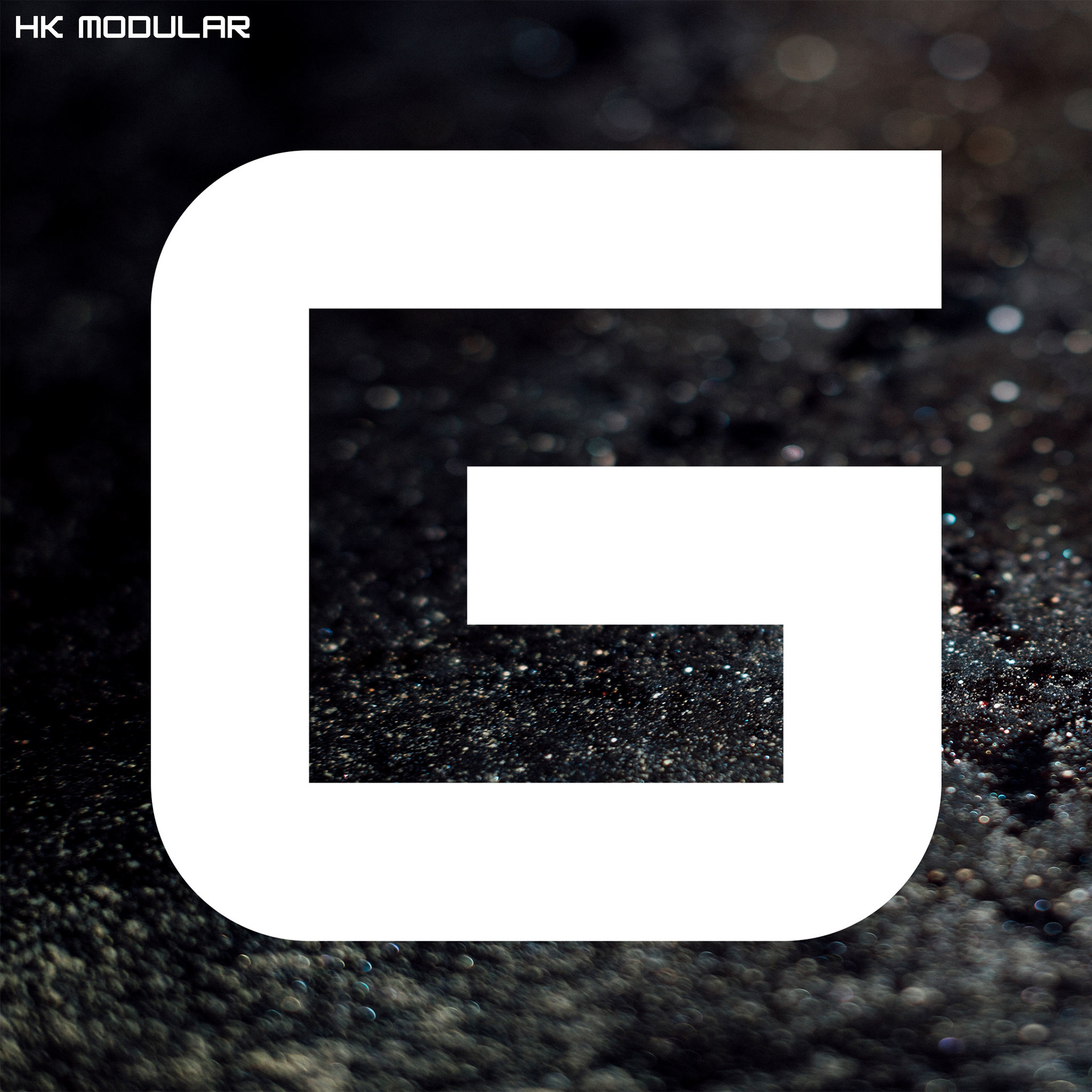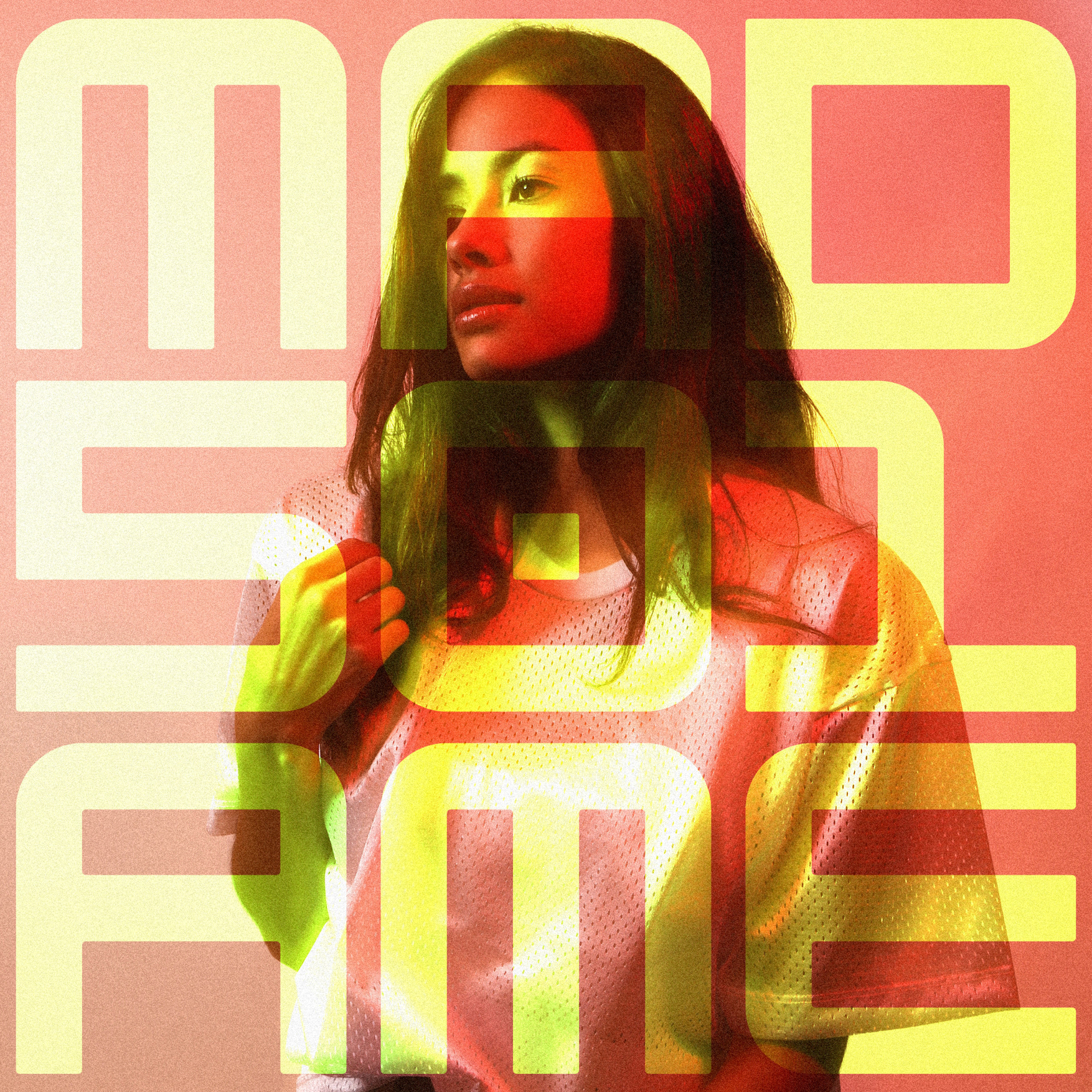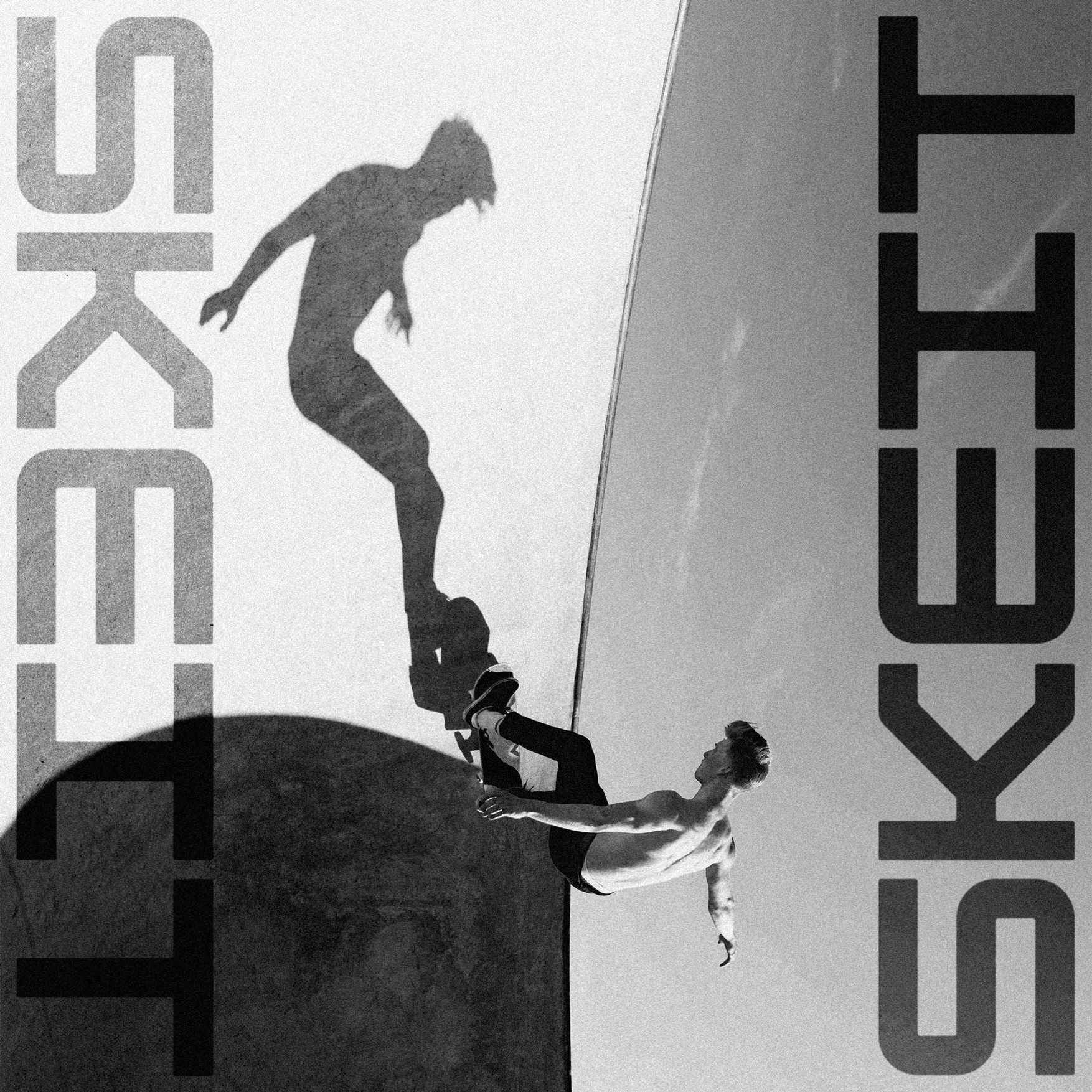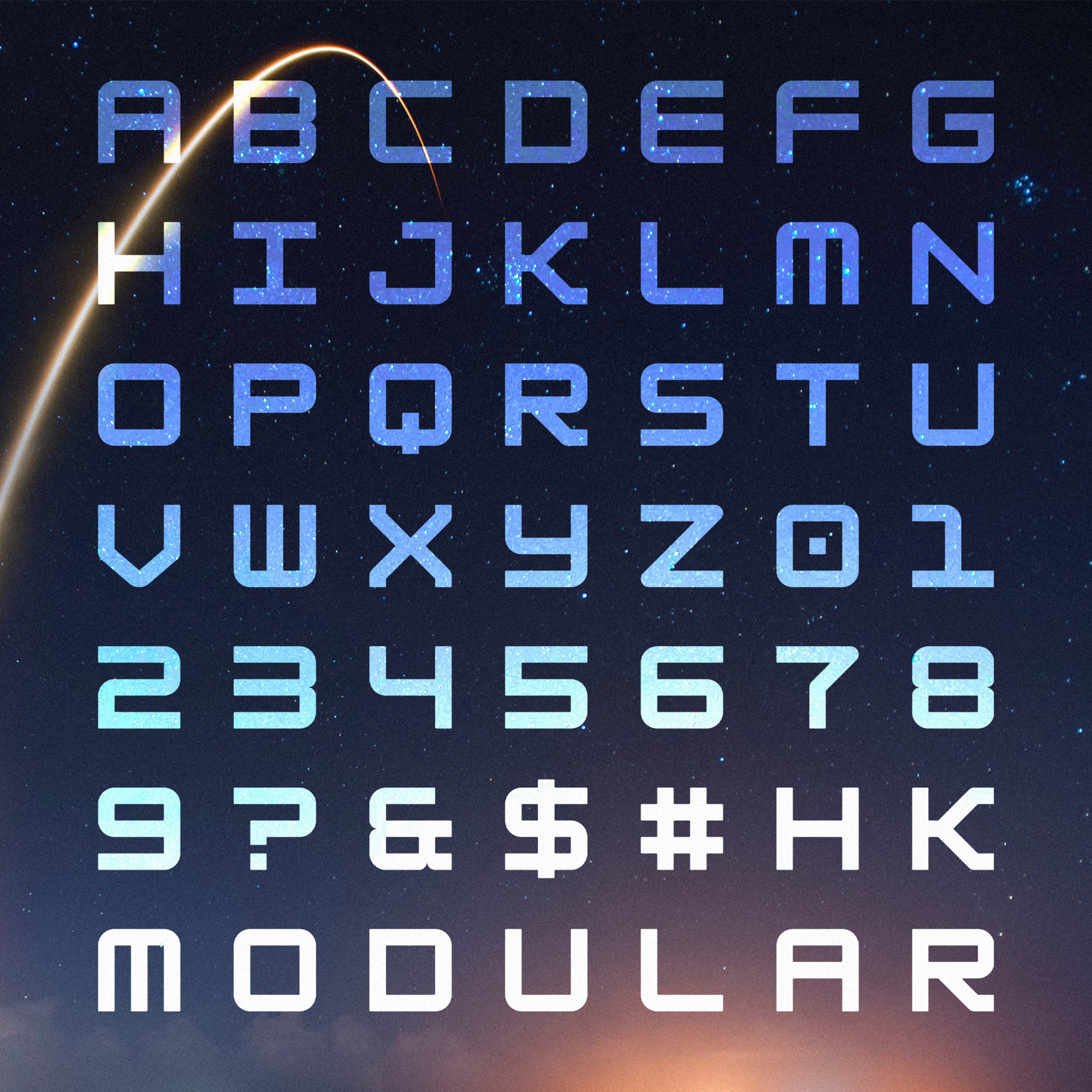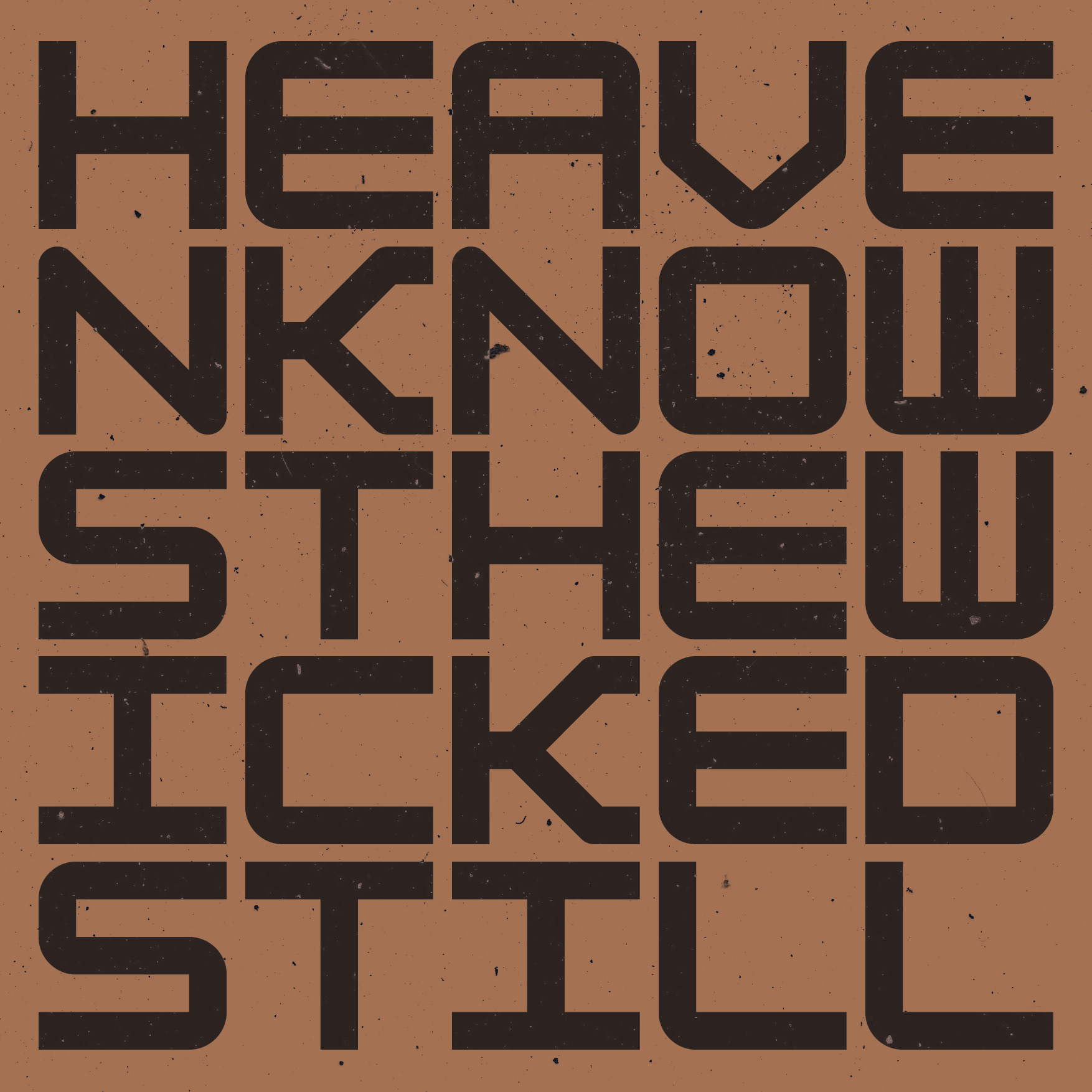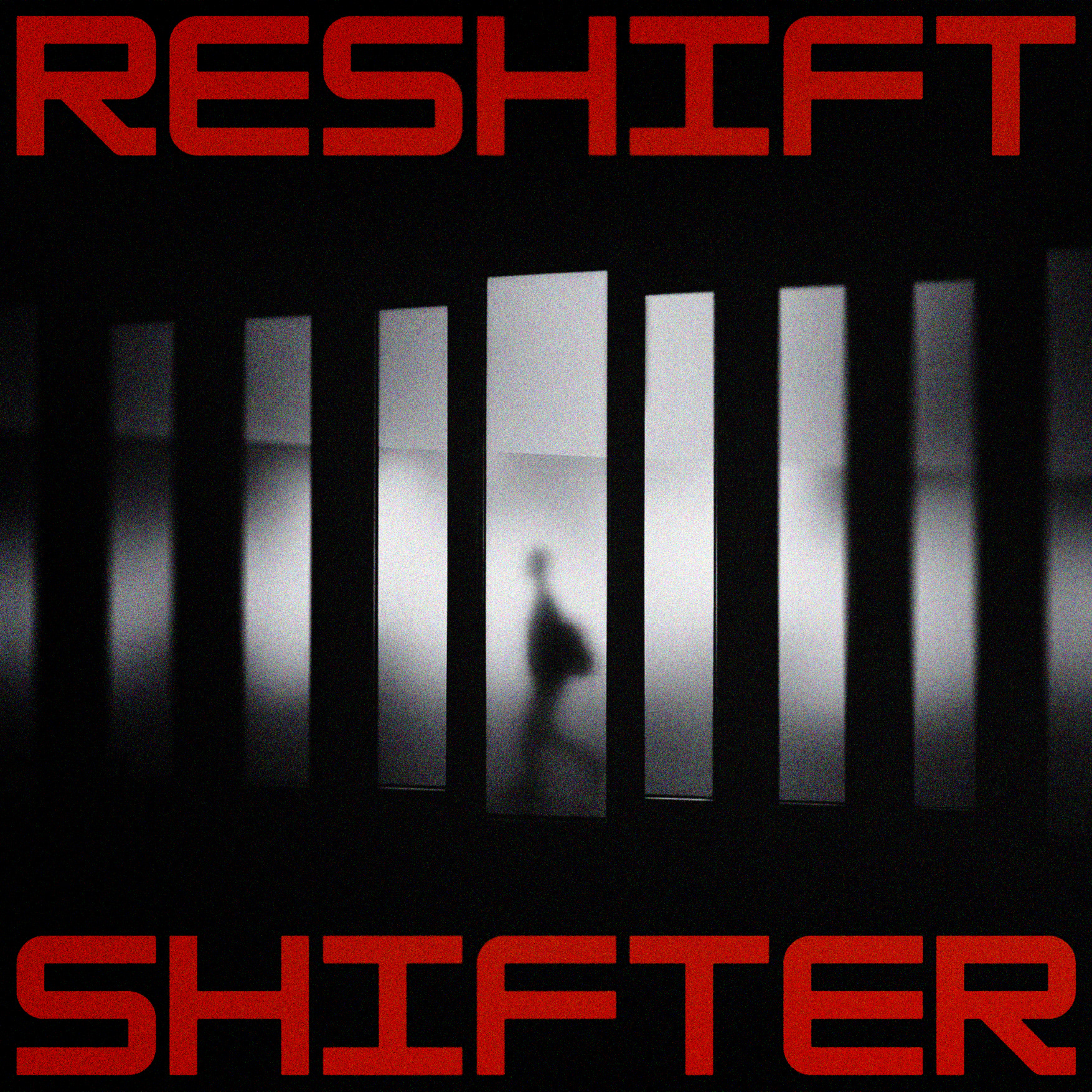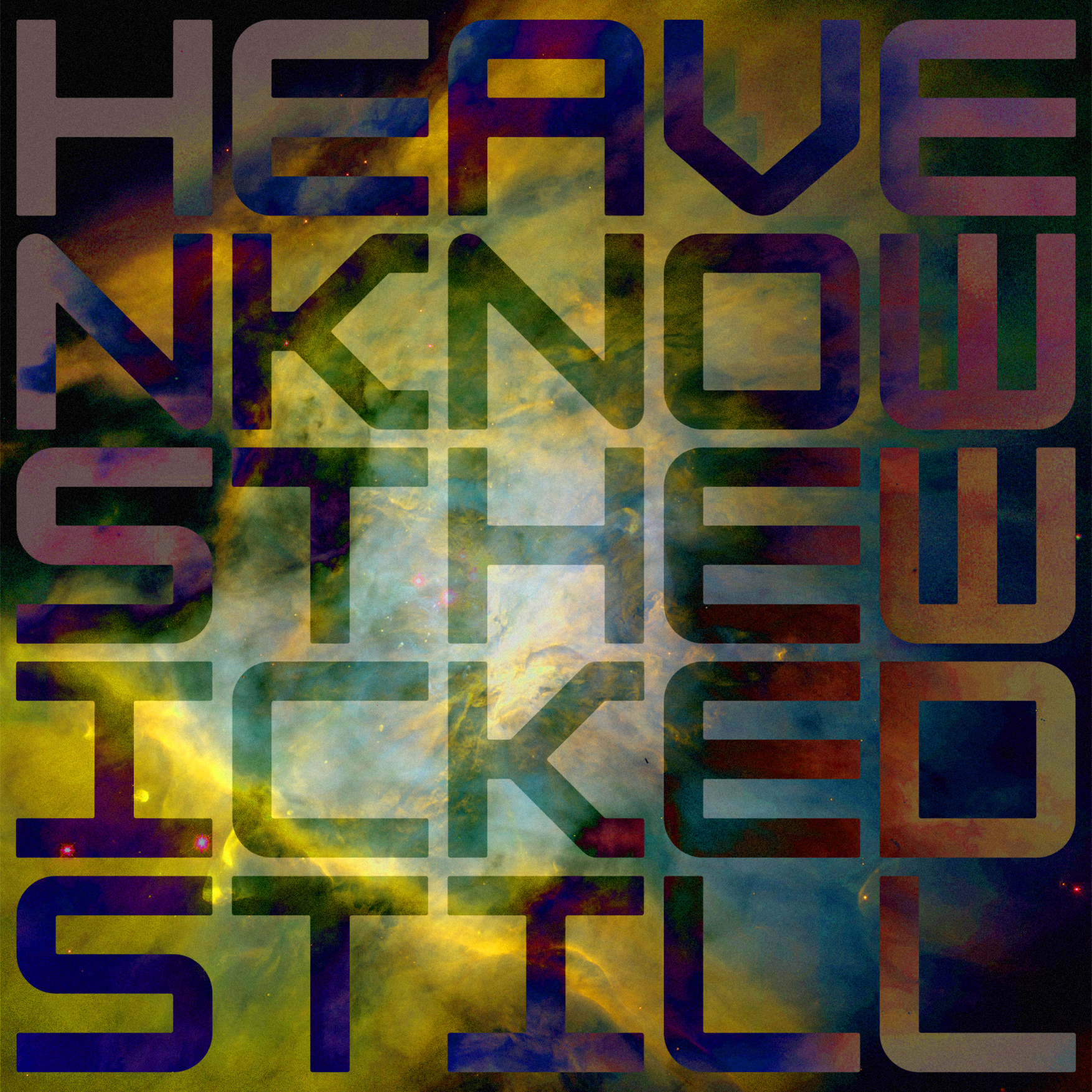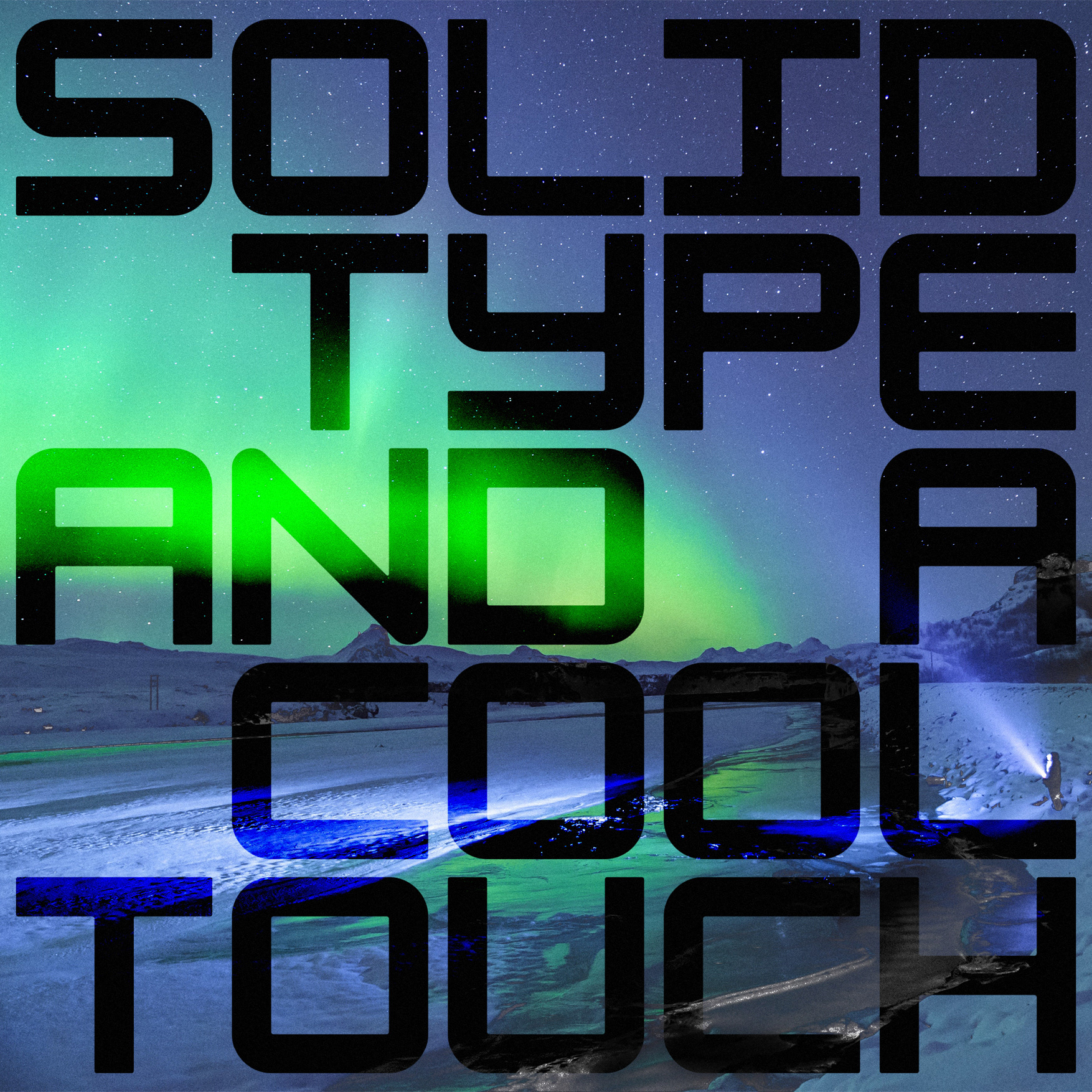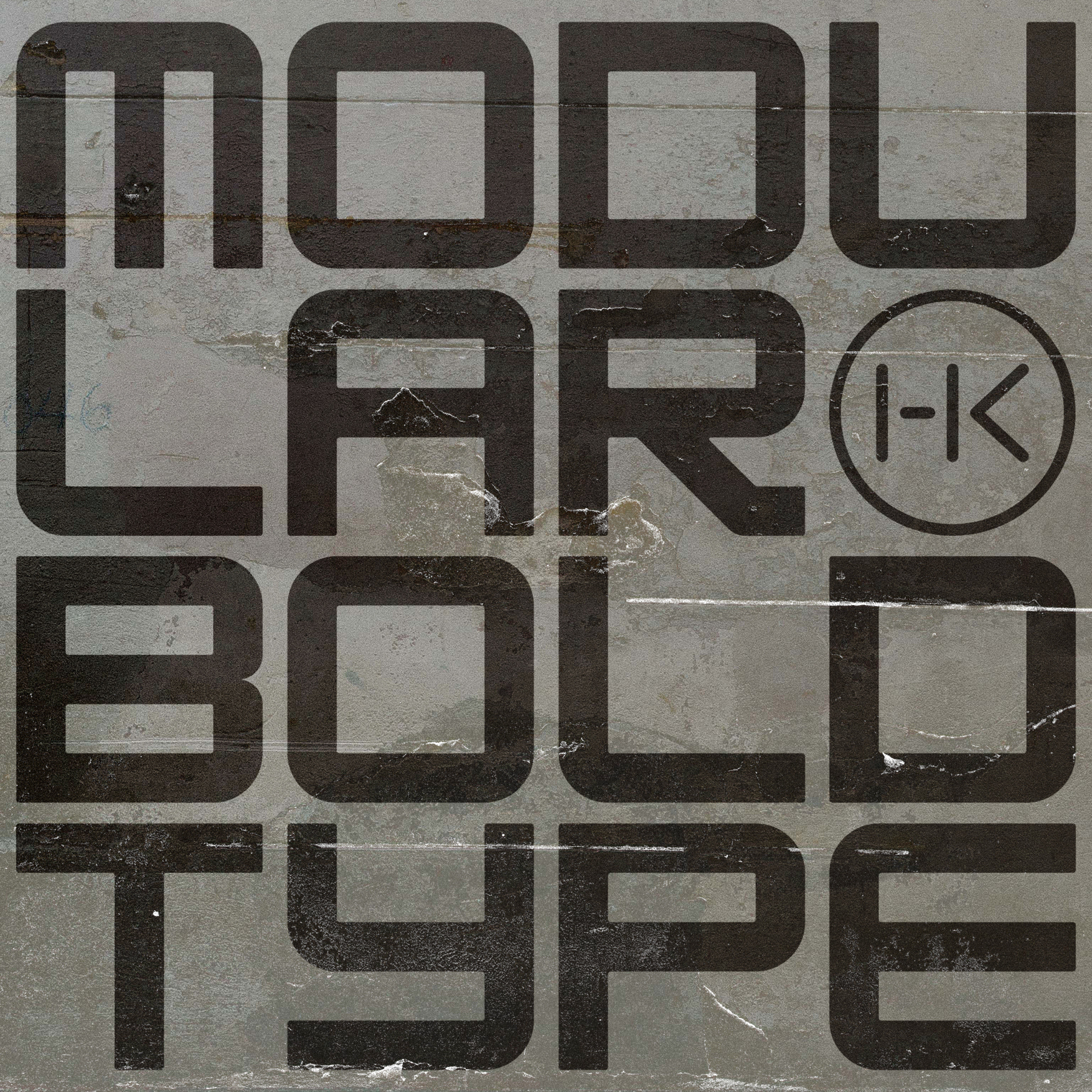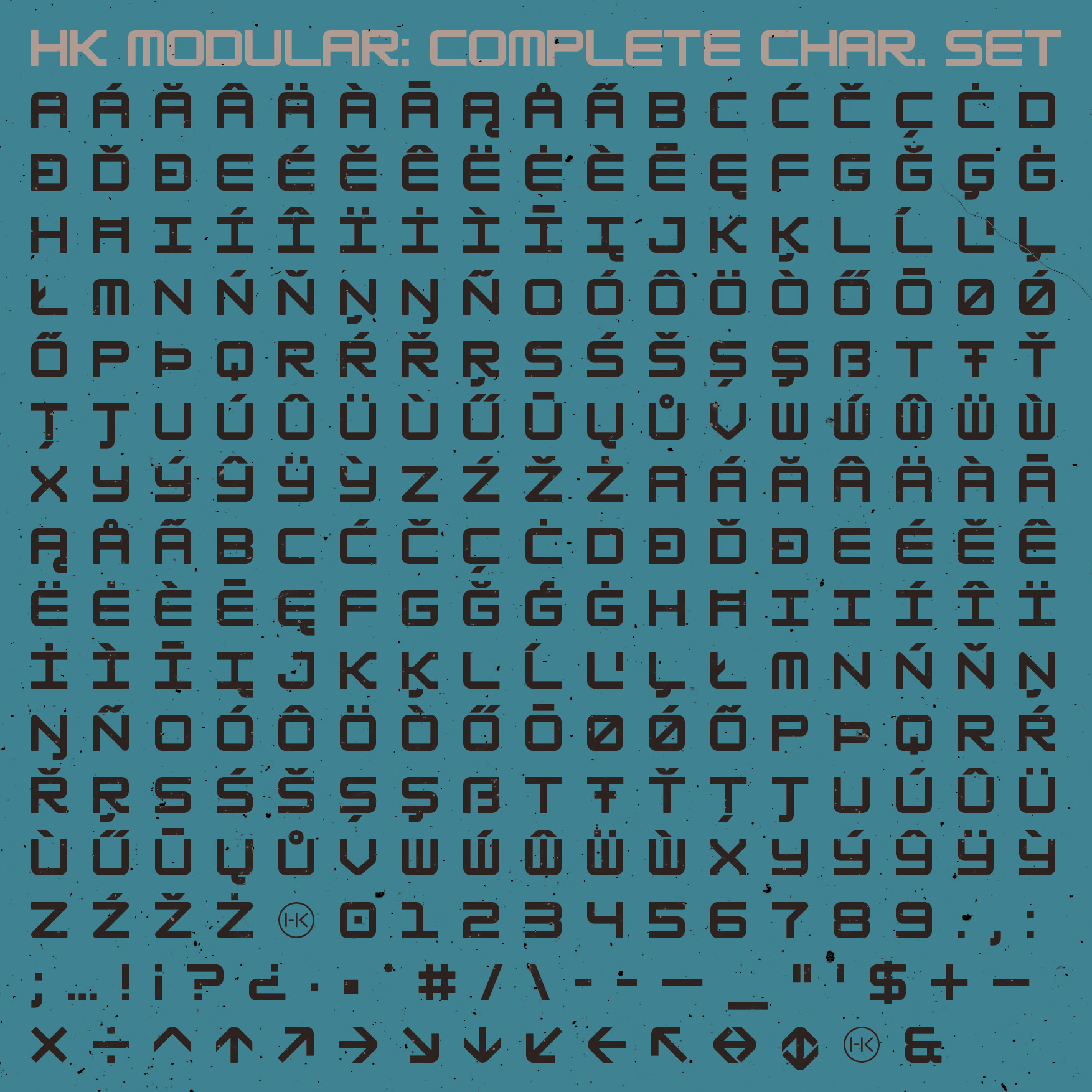
HK Modular is an industrial display typeface that performs really well as a display, title, or poster type. Use it to splash the whole page, highlight article titles, create a logo, some linear animations (maybe), or just some good graphic design stuff.​​​​​​​ HK Modular sports a regular cut and a rounded-corners design.
HK Modular is an industrial typeface that performs really well as a display, title, or poster type. Use it to splash the whole page, highlight article titles, create a logo, some linear animations (maybe), or just some good graphic design stuff.
HK Modular sports a regular cut and a rounded-corners design. It is both futuristic and retro—depending on the usage.